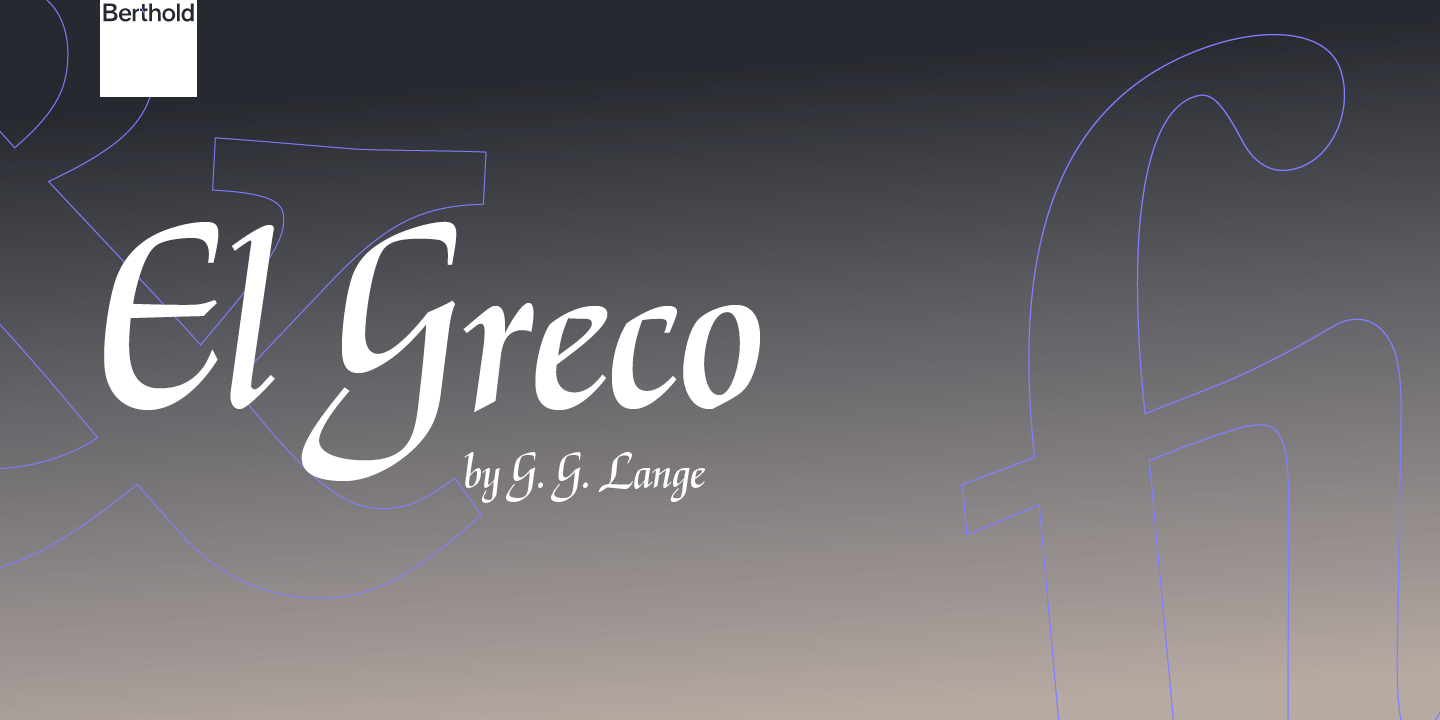
El Greco Font is a profoundly artistic and uniquely expressive typeface, perfectly suited for projects that aim to capture the dramatic elegance and historical depth of classical art. Imagine it gracing the titles for art exhibition catalogs, adding a timeless and sophisticated touch to museum branding, or providing a captivating aesthetic for historical documentaries and period-themed films. It's also an excellent choice for crafting distinctive book covers for literary classics, designing unique invitations for cultural events, or infusing artistic portfolios and fine art prints with a sense of refined grandeur. If you're looking to convey heritage, passion, and an undeniable artistic flair, El Greco Font is an outstanding selection.
What makes El Greco Font so exciting? It’s its unparalleled ability to blend the intricate details of traditional hand-lettering with the strong visual impact reminiscent of a master painter's strokes. This font often features elegant flourishes, bold contrasts, or a distinct, almost calligraphic quality that gives it an undeniable charisma and visual richness. Despite its often ornate flair, El Greco Font is meticulously designed to maintain excellent readability, ensuring your message is communicated beautifully and with a distinguished, captivating tone. Designers will appreciate its versatility in creating designs that feel both artistically profound and professionally polished, making it a go-to choice for brands and projects that aim to evoke a sense of history, creativity, and sophisticated artistry.
The El Greco Font family is typically designed to showcase a singular, beautifully crafted display or serif style that perfectly embodies its unique appeal. While it may not feature extensive weight variations like a traditional text font, its strength lies in its inherent personality and often includes a rich set of stylistic alternates, ligatures, or unique glyphs that enhance its period aesthetic. These subtle details ensure that El Greco Font maintains its cohesive and captivating look across various applications, from commanding museum signage to evocative literary designs. Discover the timeless artistry of El Greco Font Free Download and infuse your designs with an unforgettable sense of historical and creative depth.